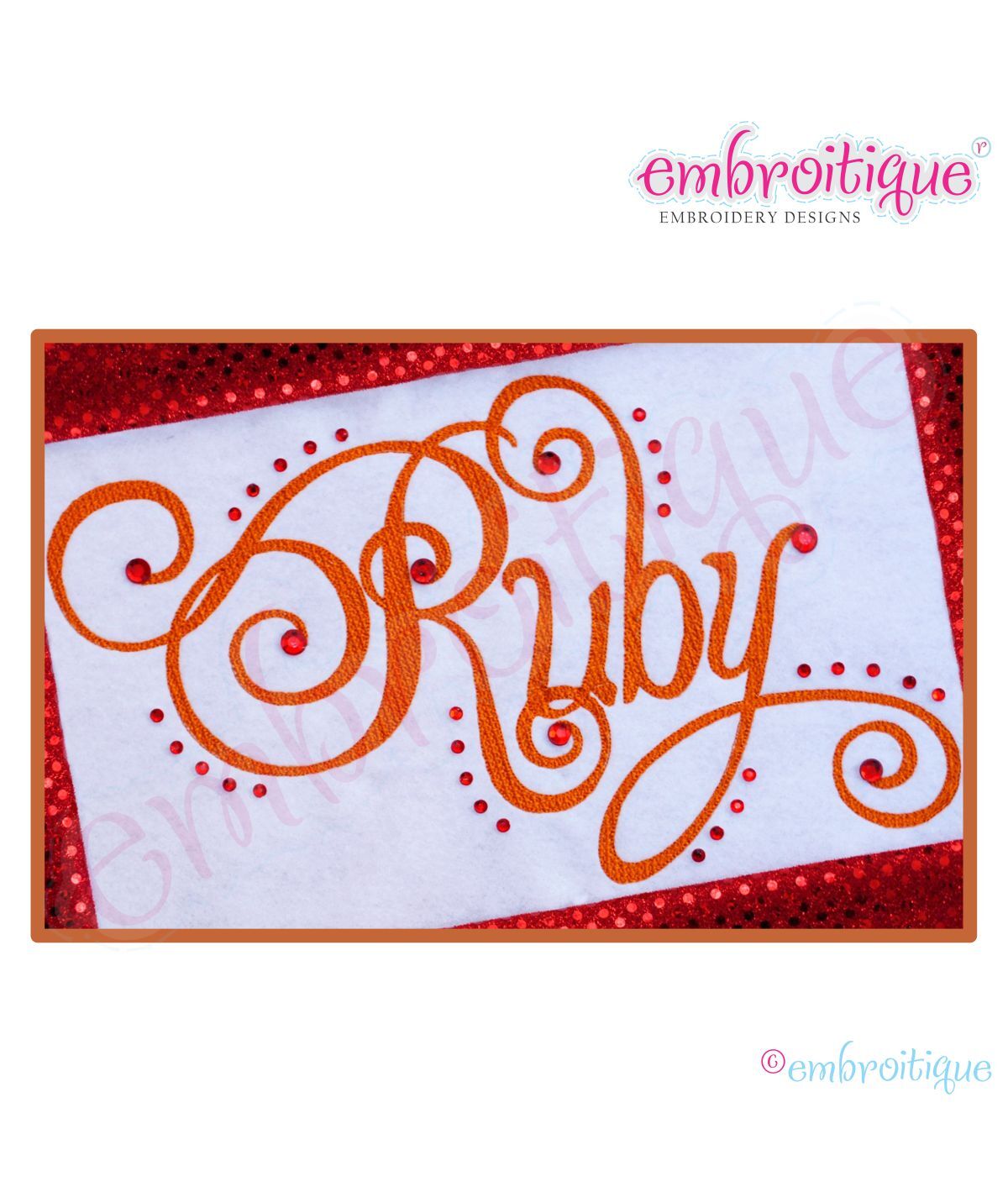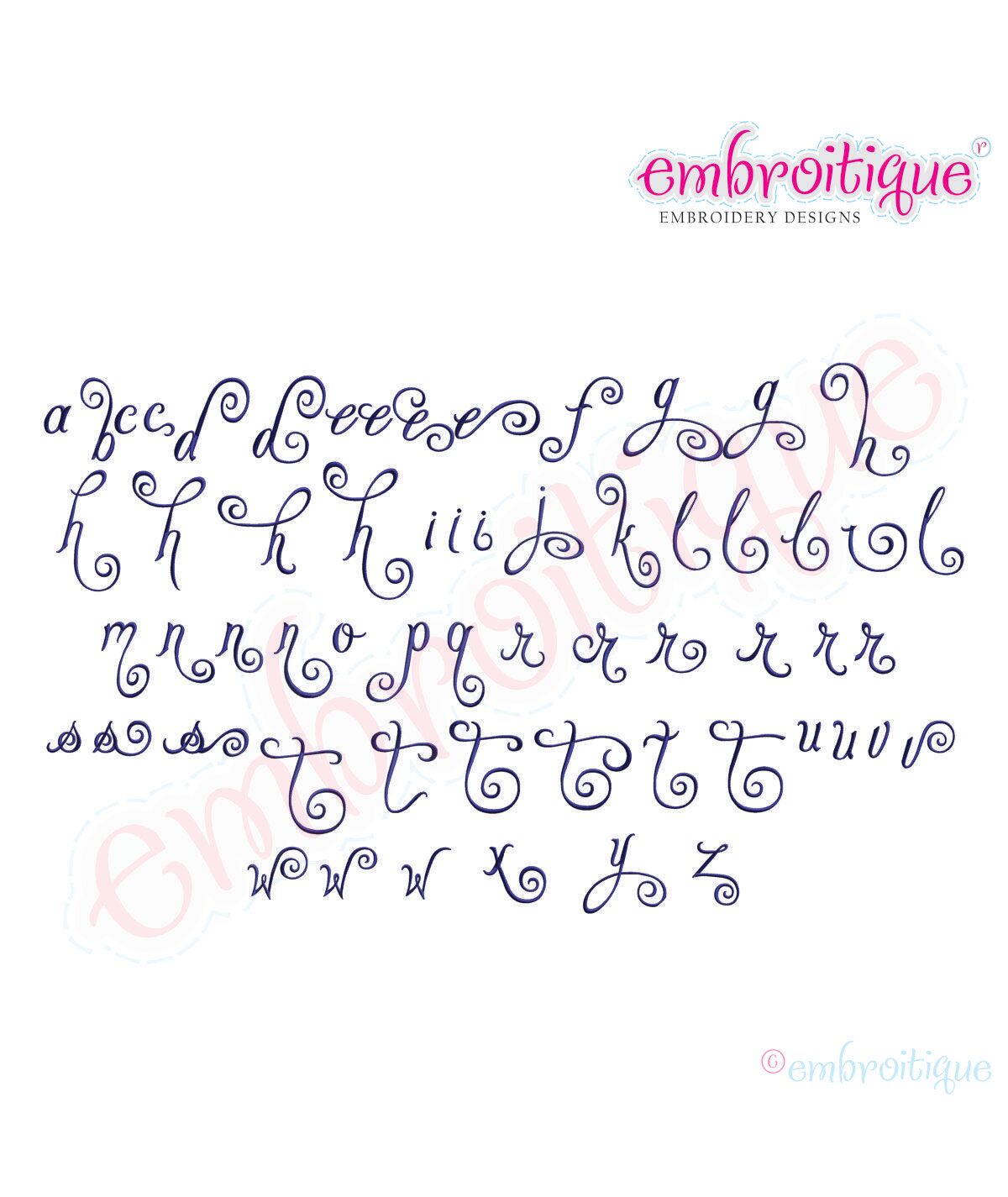
Charming Calligraphy Script Monogram Set - Large - FULL SET - 7", 8", 9"
This beautiful calligraphy monogram set is an Embroitique exclusive set! Check out all of our Calligraphy Script Designs!